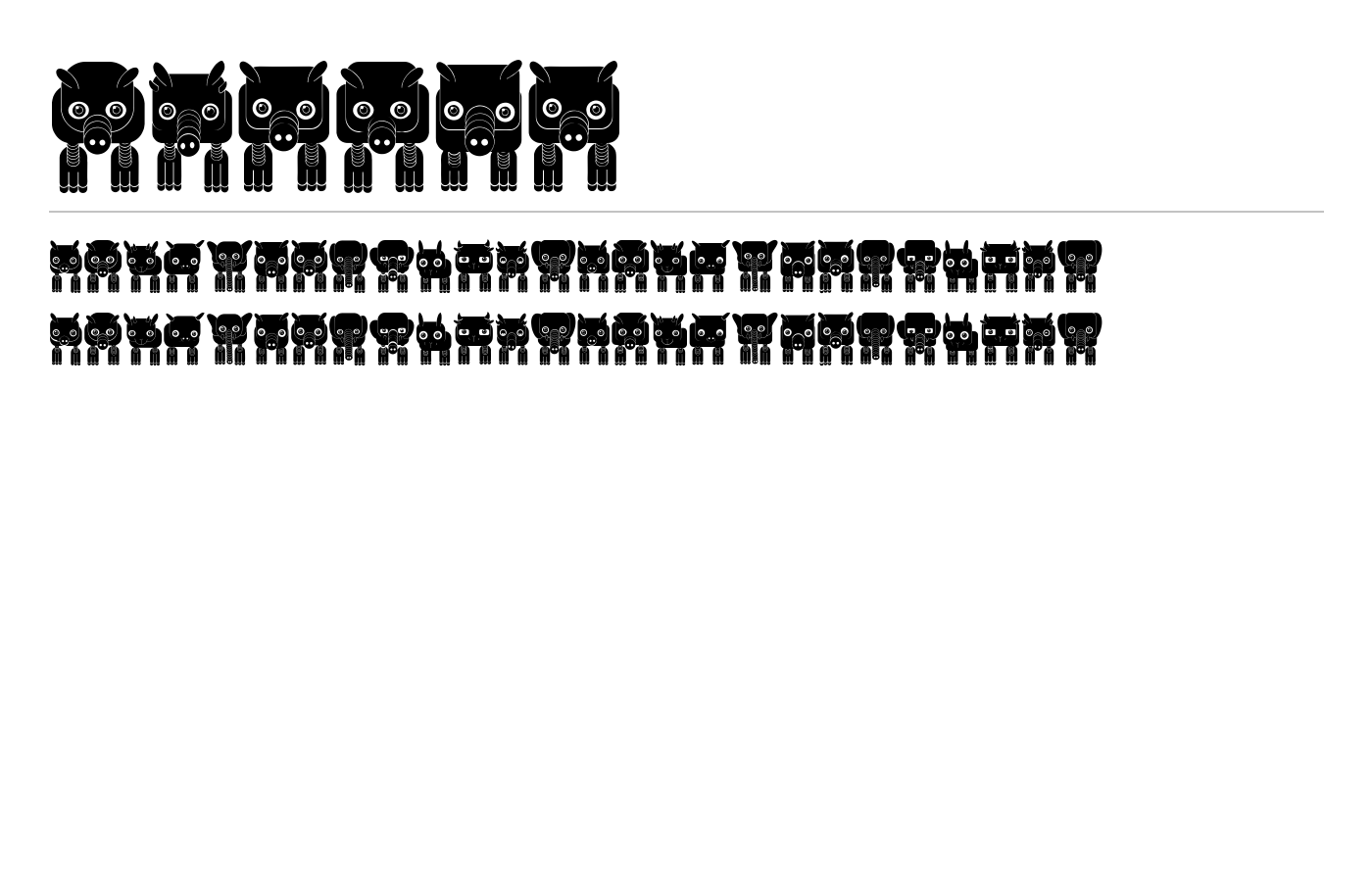
Bytost is a unique display font that features a playful and whimsical design resembling stylized animal figures rather than traditional letterforms. Its bold, solid shapes and geometric details create a fun, eye-catching look that works best for creative branding, posters, or children's materials where a lighthearted, imaginative vibe is desired. This font adds personality and charm by transforming text into a visual story, making it ideal for projects that want to stand out with a distinctive, artistic flair.
Bytost Font
About Bytost Font
| Font family | Bytost Font |